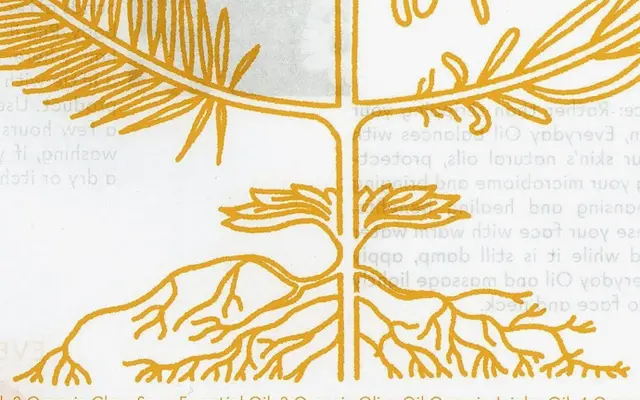
A geometric sans with calligraphic lowercase details, drawing on Modernist monoline typefaces and 1930s Dutch and German sans-serif traditions.
Three weights with matching obliques make up this six-style family, which balances rational geometric construction against idiosyncratic calligraphic details in select lowercase letterforms. The design research behind it sought typefaces that sit between order and personality, a tension visible in the contrast between its clean uppercase and more expressive lowercase. It has found use in brand identity and editorial contexts, including the Peirene Press identity and skincare brand Everyday Oil.
Certeau draws on geometric Modernist monoline traditions alongside 1930s Dutch and German sans-serif typography, placing it firmly in the geometric sans category, though its calligraphic lowercase details give it an idiosyncratic, humanist inflection.